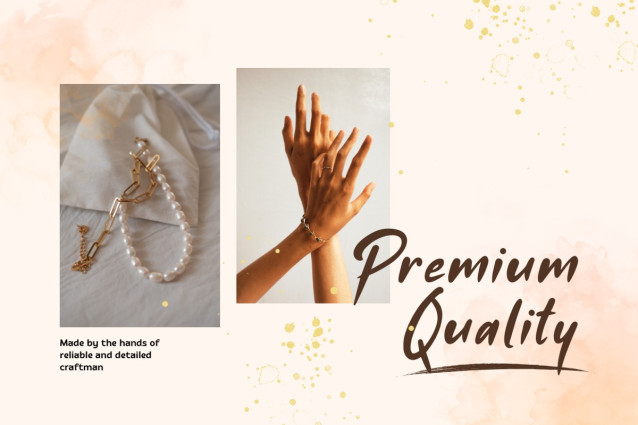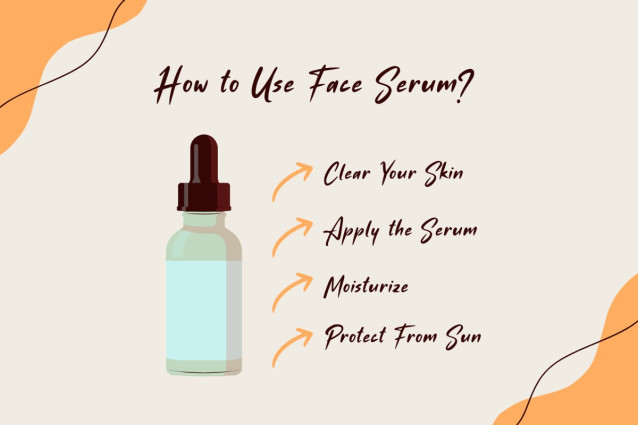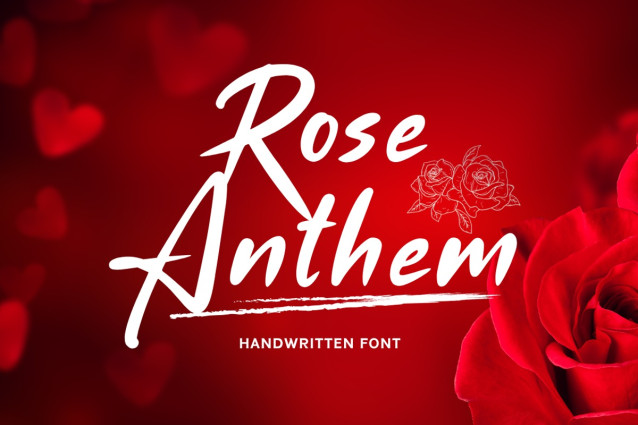
Rose Anthem Font
Rose Anthem Font is a charming handwritten font that captures the elegance of personal touch with a graceful, flowing style. Its soft curves and natural strokes make it perfect for anything that needs a warm, heartfelt feel.